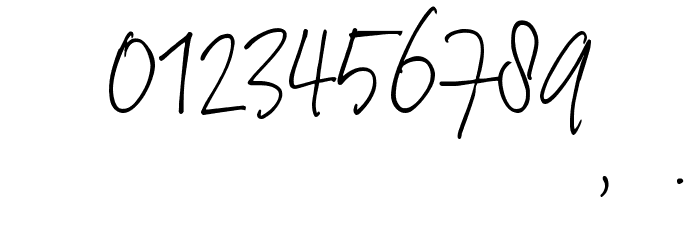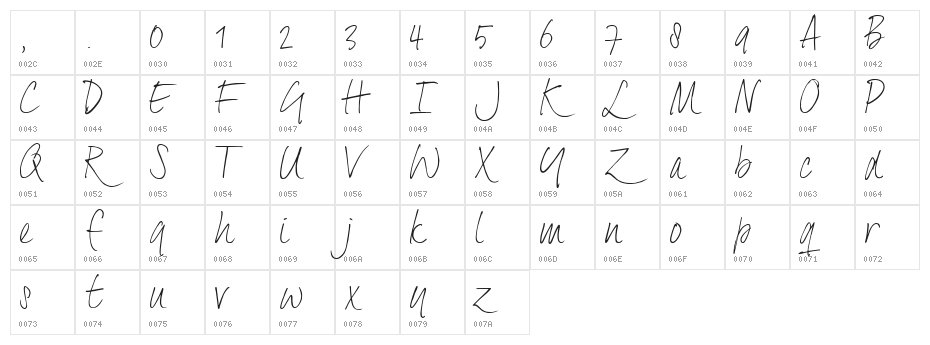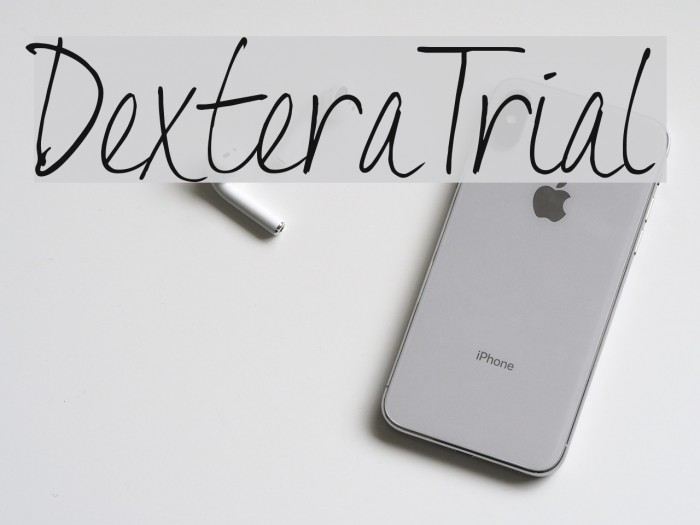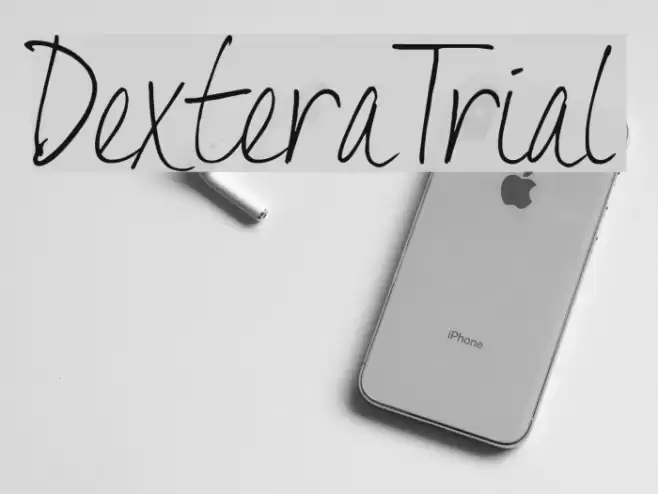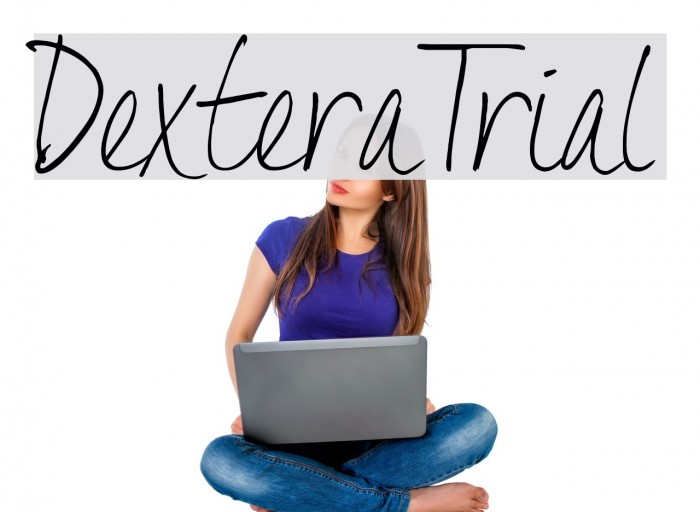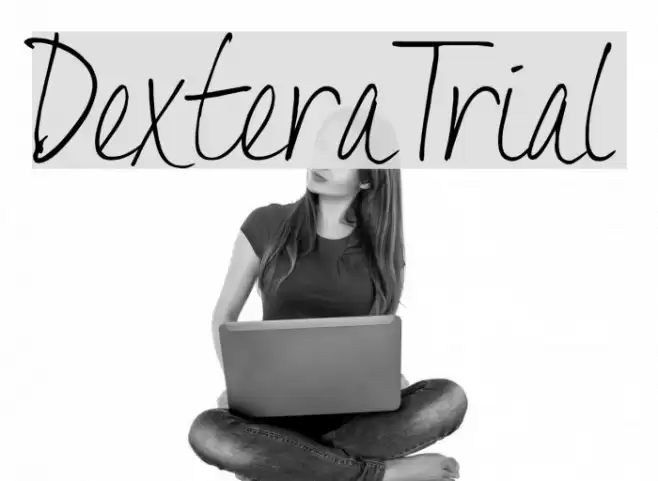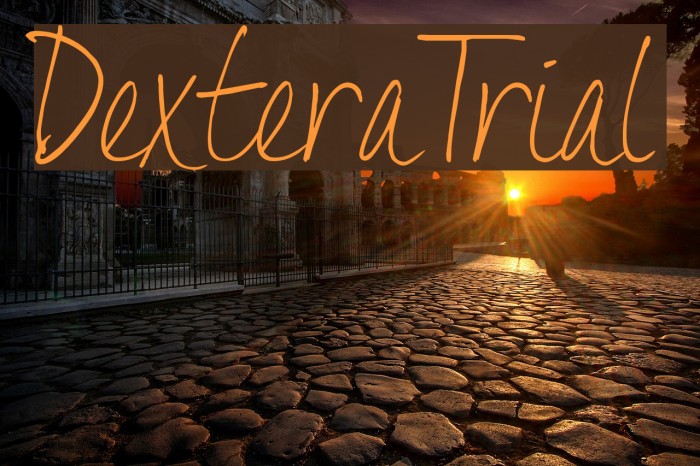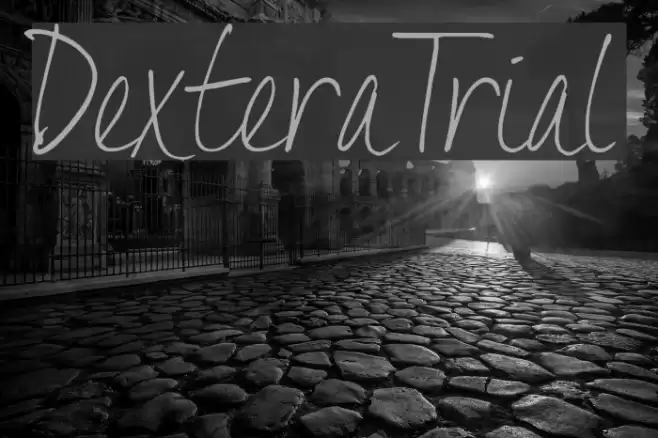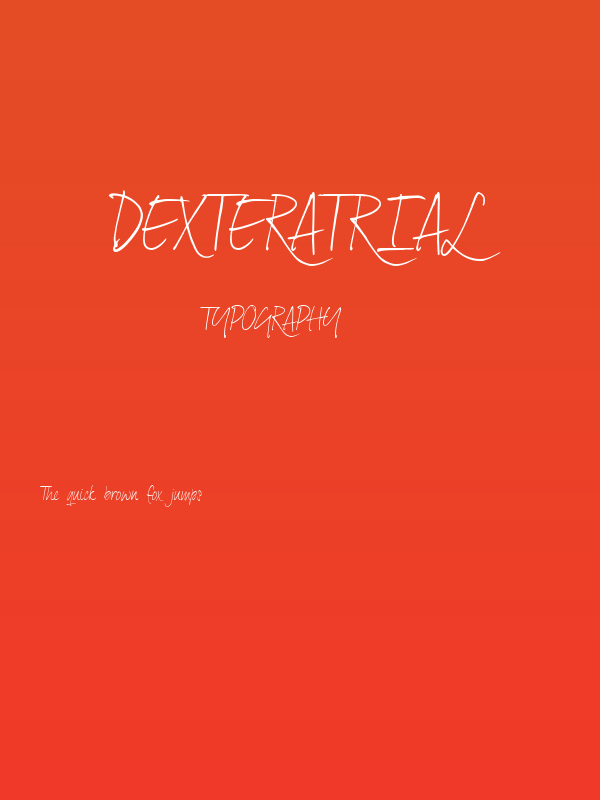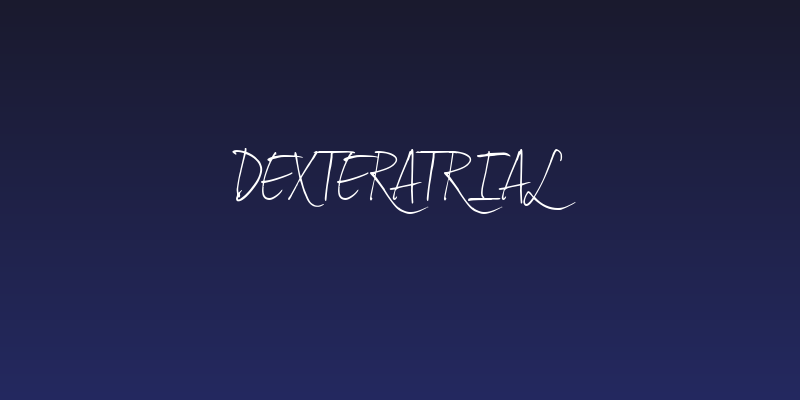
DexteraTrial Font
DexteraTrial Description
This font is a lively and expressive handwritten script that exudes a sense of spontaneity and creativity. The letters are fluid and dynamic, with a natural flow that mimics the movement of a pen on paper. The uppercase letters are bold and confident, while the lowercase letters maintain a consistent rhythm and elegance. The numbers and special characters are crafted with the same attention to detail, ensuring a cohesive look across all elements. This font captures the essence of personal handwriting, making it ideal for projects that require a personal touch.